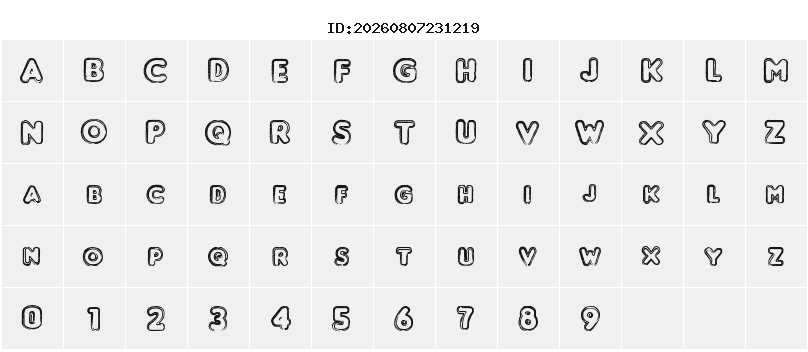
• Font Name: Punched
• Font ID: Punched:Version 1.00
• Full Font Name: Punched
• Version: Version 1.00 September 24, 2010, initial release
• PostScript Name: Punched
• Character Count: 64
• Copyright: Anthony Robinson - Anfa - 2010
About Punched.ttf
Punched.ttf is a modern, elegant sans-serif font designed for ultimate readability and visual harmony. Perfect for branding, headlines, web design, and print materials.